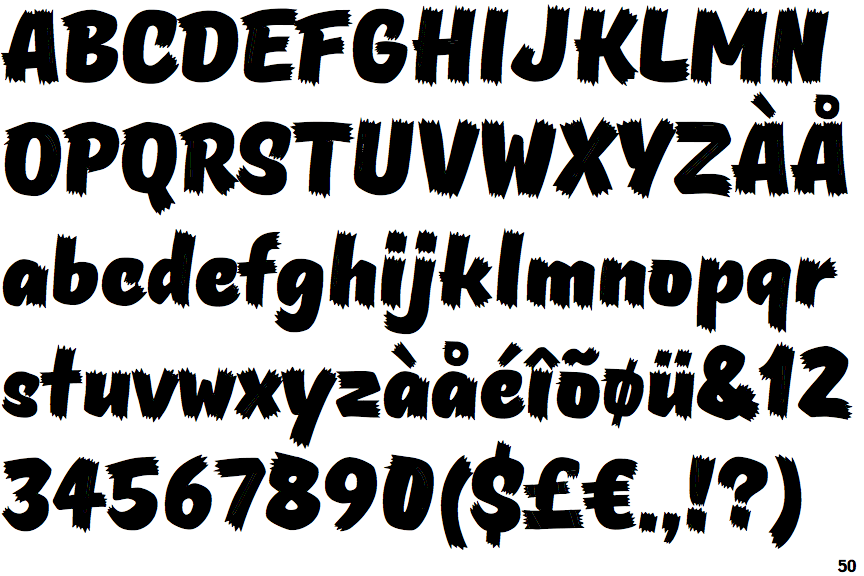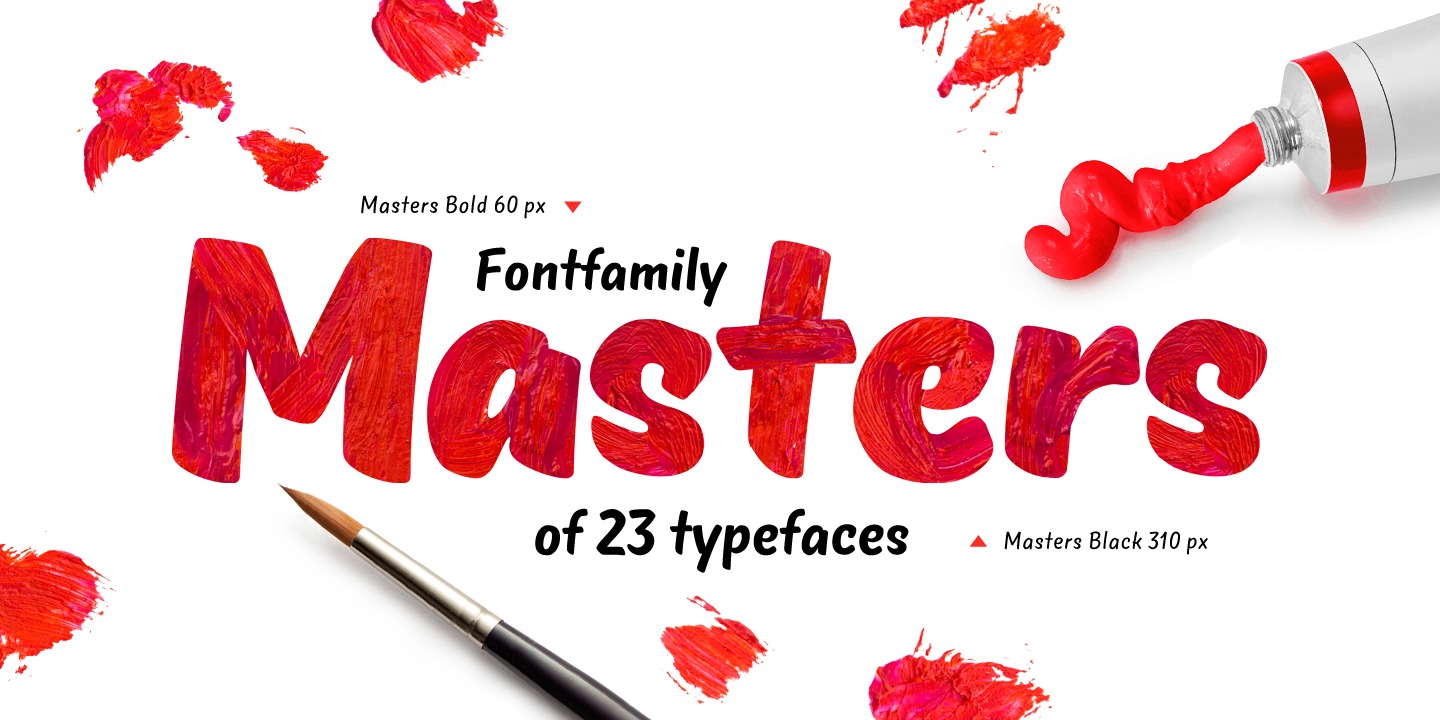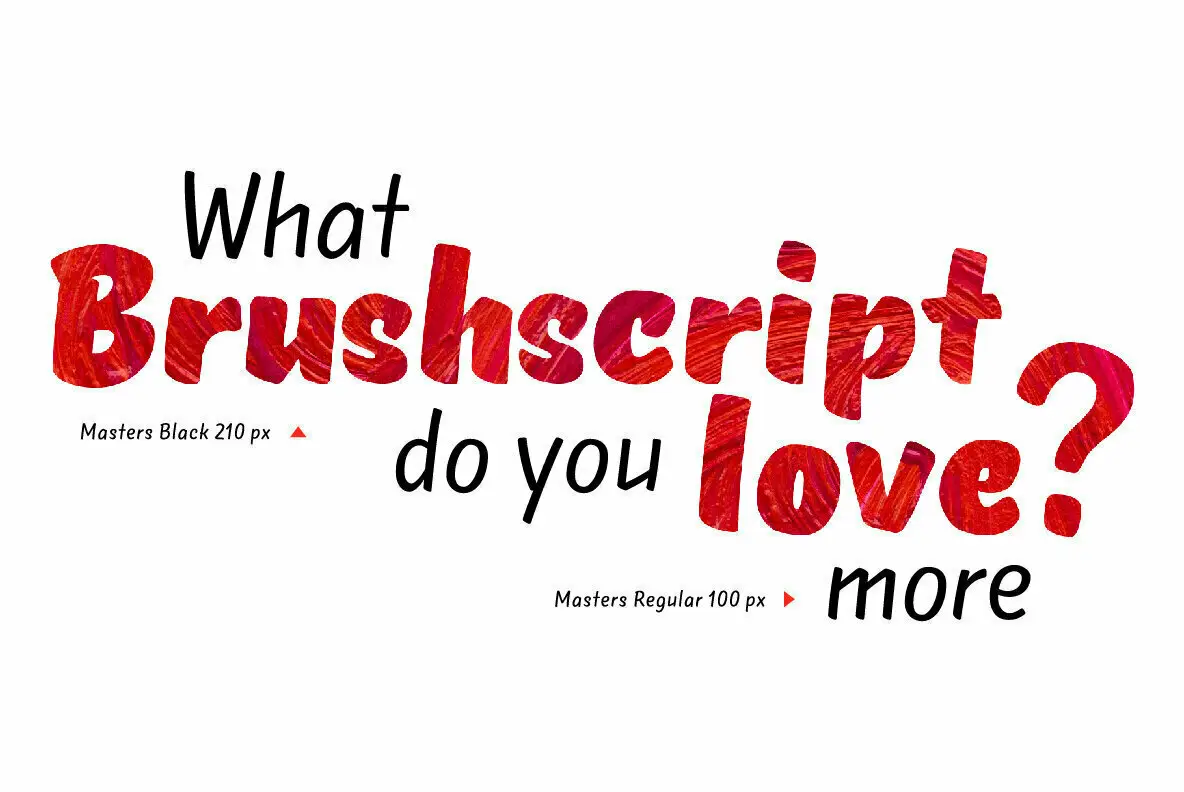
Pinatas Masters Font . — pinatas masters is a very emotional typeface. — thousands of designers (famous or not) use the image font detection system to find a font or similar free fonts. Olivine urw type foundry 42 styles 2 fonts free! Fonts similar to pinatas masters, font by piñata. pinatas masters is a very emotional typeface. pinatas masters in use. This typeface will add to your design sincerity and warmth. Or combine terms with advanced search. — pinatas masters black font. pinatas masters is a very emotional typeface. Pinatas masters condensed black otf (900) by. This typeface will add to your design sincerity and warmth. pinatas masters bold package is a very emotional collection of 4 beautiful fonts. This typeface will add to your design sincerity and warmth. Designed by ivan gladkikh, pinatas masters is a brush script font family.
This typeface will add to your design sincerity and warmth. — download pinatas masters condensed bold otf (700) font. masters is a very emotional font family. 100 free fonts alternatives to pinatas masters black Pinatas masters condensed bold otf (700) by. pinatas masters rough black. Pinatas masters condensed black otf (900) by. This typeface will add to your. An independent archive of typography. Tt masters pinatas masters is a very emotional typeface.
Pinatas Masters Font pinatas masters is a very emotional typeface. pinatas masters condensed black. Olivine urw type foundry 42 styles 2 fonts free! pinatas masters rough black. — pinatas masters is a very emotional typeface. An independent archive of typography. — pinatas masters is a very emotional typeface. Information about the font pinatas masters black from typetype, and where to download it. 410+ glyphs in each style. Pinatas masters condensed bold otf (700) by. This typeface will add to your design sincerity and warmth. pinatas masters is a very emotional typeface. Ivan gladkikh, konstantin birukov, olexa volochay and maria mizernitskaya. — thousands of designers (famous or not) use the image font detection system to find a font or similar free fonts. Ivan gladkikh, konstantin birukov, olexa volochay and maria mizernitskaya. pinatas masters is a very emotional typeface.
Piñata Font on Behance Pinatas Masters Font This typeface will add to your design sincerity and warmth. Designed by ivan gladkikh, pinatas masters is a brush script font family. masters is a very emotional font family. — download pinatas masters condensed bold otf (700) font. Or combine terms with advanced search. Information about the font pinatas masters black from typetype, and where to download it.. Pinatas Masters Font.
Identifont Pinatas Masters Birds Black Pinatas Masters Font Pinatas masters, pinatas masters birds, pinatas masters. — thousands of designers (famous or not) use the image font detection system to find a font or similar free fonts. An independent archive of typography. pinatas masters typeface consist of 4 different subfamilies: pinatas masters is a very emotional typeface. We did 4 different styles:. Ivan gladkikh, konstantin birukov,. Pinatas Masters Font.
Pinatas Masters Font font & Desktop MyFonts Pinatas Masters Font These fonts will add to your design sincerity and feeling. Tt masters pinatas masters is a very emotional typeface. 410+ glyphs in each style. This typeface will add to your design sincerity and warmth. Pinatas masters, pinatas masters birds, pinatas masters. pinatas masters in use. Tt masters pinatas masters is a very emotional typeface. Fonts similar to pinatas masters,. Pinatas Masters Font.
Identifont Balloon Extra Bold Pinatas Masters Font — download pinatas masters condensed bold otf (700) font. pinatas masters is a very emotional typeface. These fonts will add to your design sincerity and feeling. This typeface will add to your. pinatas masters bold package is a very emotional collection of 4 beautiful fonts. — pinatas masters black font. This typeface will add to your. Pinatas Masters Font.
Pinata Masters Which Team Won the Title of Piñata Heroes? Leisurebyte Pinatas Masters Font what fonts are similar to pinatas masters black? pinatas masters rough black. pinatas masters in use. This typeface will add to your design sincerity and warmth. Pinatas masters condensed black otf (900) by. Ivan gladkikh, konstantin birukov, olexa volochay and maria mizernitskaya. Information about the font pinatas masters black from typetype, and where to download it. Pinatas. Pinatas Masters Font.
Pinatas Marks Font YouWorkForThem Pinatas Masters Font Ivan gladkikh, konstantin birukov, olexa volochay and maria mizernitskaya. This typeface will add to your design sincerity and warmth. pinatas masters condensed black. pinatas masters rough black. 100 free fonts alternatives to pinatas masters black Fonts similar to pinatas masters, font by piñata. We did 4 different styles:. pinatas masters typeface consist of 4 different subfamilies: Information. Pinatas Masters Font.
Best Chicano Fonts in Canva Canva Templates Pinatas Masters Font — pinatas masters is a very emotional typeface. Designed by ivan gladkikh, pinatas masters is a brush script font family. Tt masters pinatas masters is a very emotional typeface. Information about the font pinatas masters black from typetype, and where to download it. — download pinatas masters condensed black otf (900) font. Pinatas masters, pinatas masters birds, pinatas. Pinatas Masters Font.
Netflix's "Piñata Masters" brings Mexican cartonería to reality TV Pinatas Masters Font Tt masters pinatas masters is a very emotional typeface. 410+ glyphs in each style. pinatas masters is a very emotional typeface. Ivan gladkikh, konstantin birukov, olexa volochay and maria mizernitskaya. 100 free fonts alternatives to pinatas masters black pinatas masters rough black. — download pinatas masters condensed black. Pinatas Masters Font.
Pinata Masters Which Team Won the Title of Piñata Heroes? Leisurebyte Pinatas Masters Font Tt masters pinatas masters is a very emotional typeface. This typeface will add to your. pinatas masters typeface consist of 4 different subfamilies: This typeface will add to your design sincerity and warmth. pinatas masters in use. pinatas masters black package is a very emotional collection of 4 beautiful fonts. pinatas masters is a very emotional. Pinatas Masters Font.